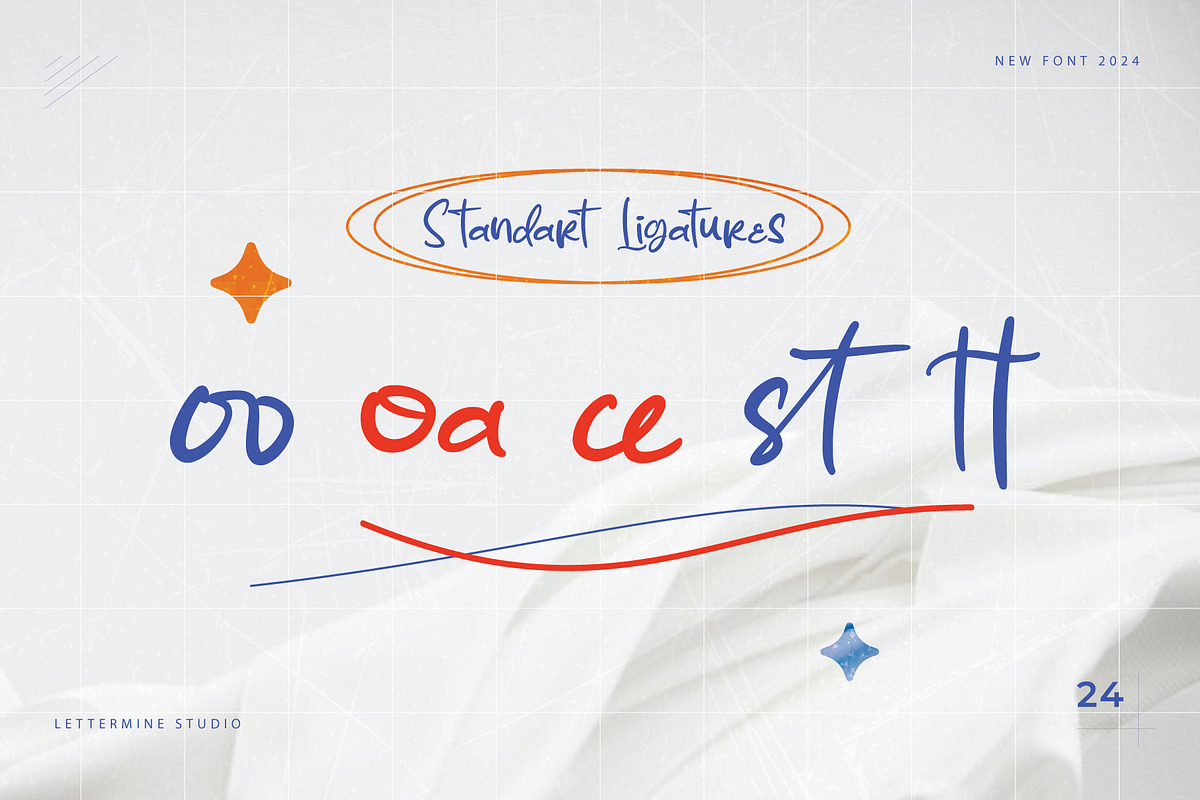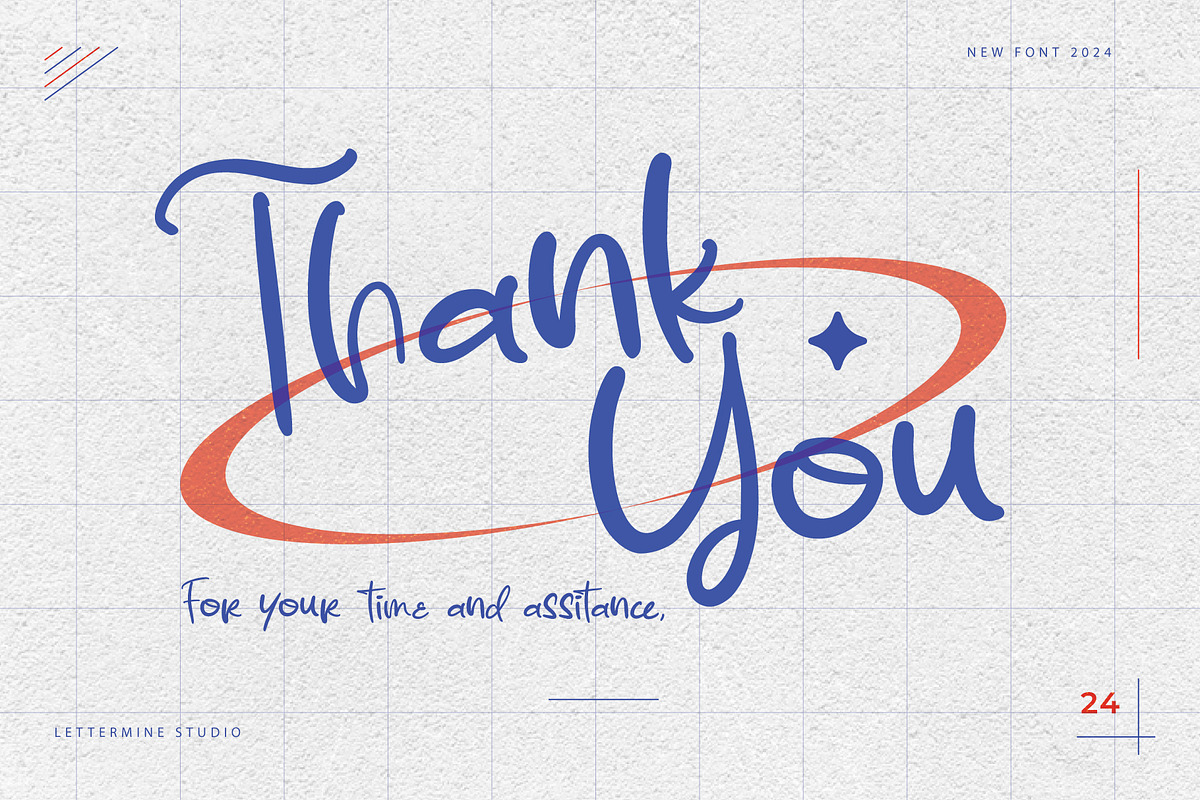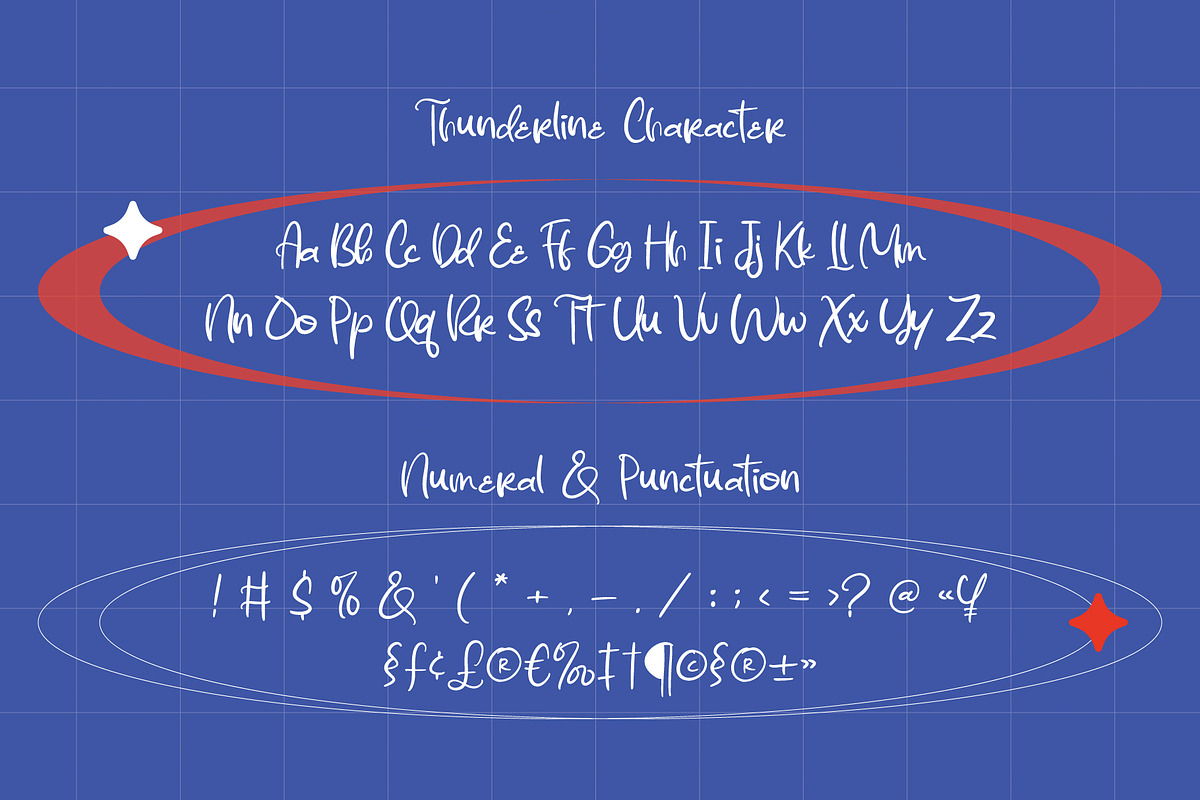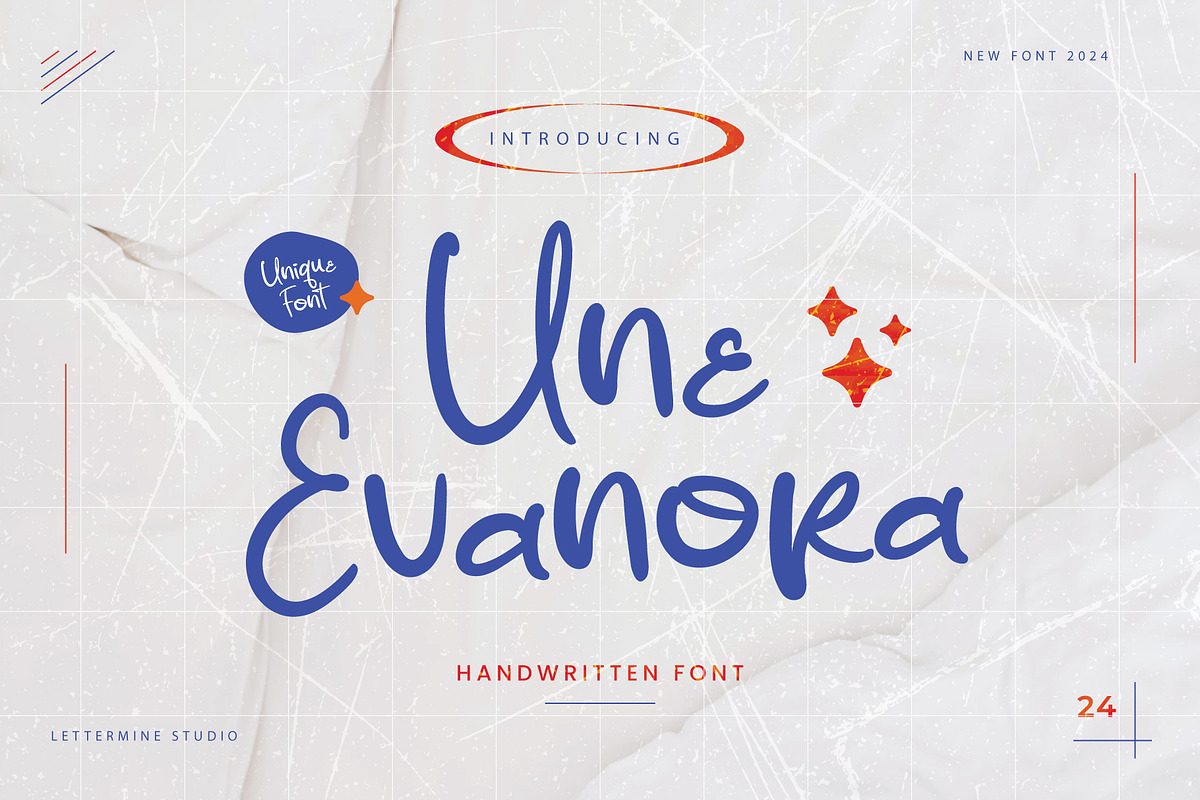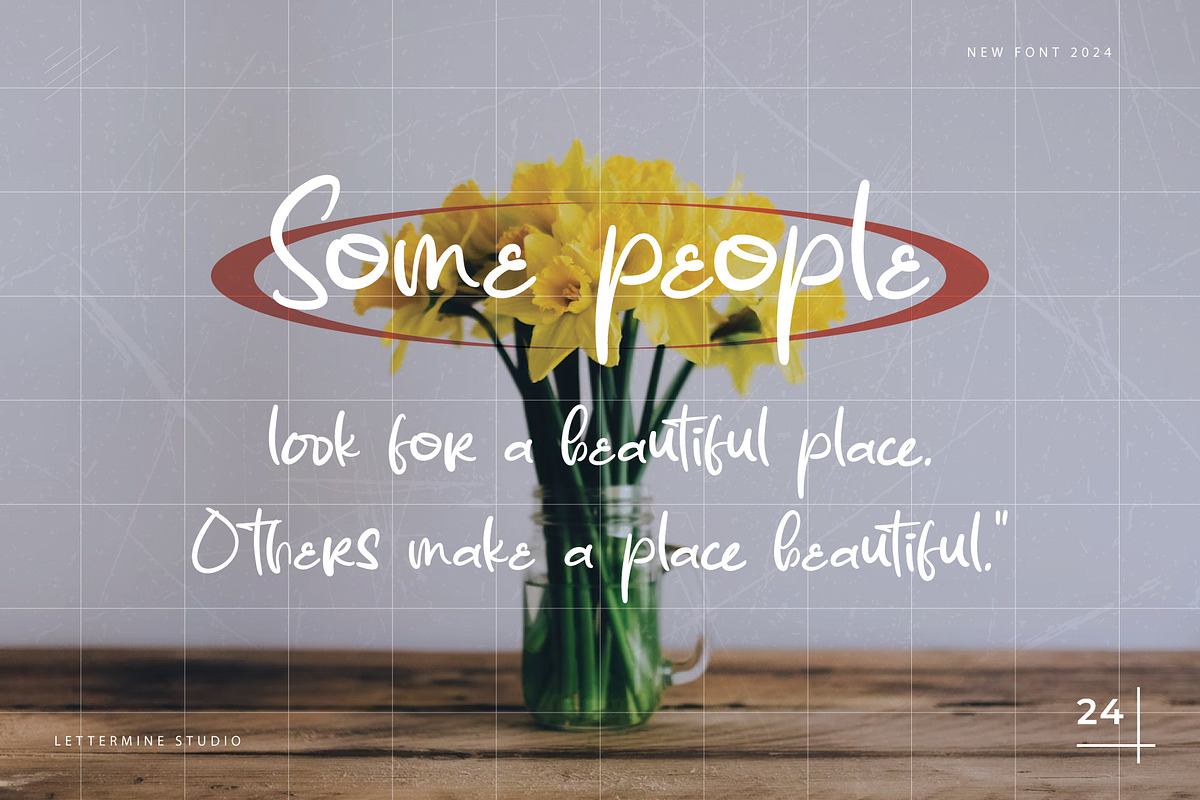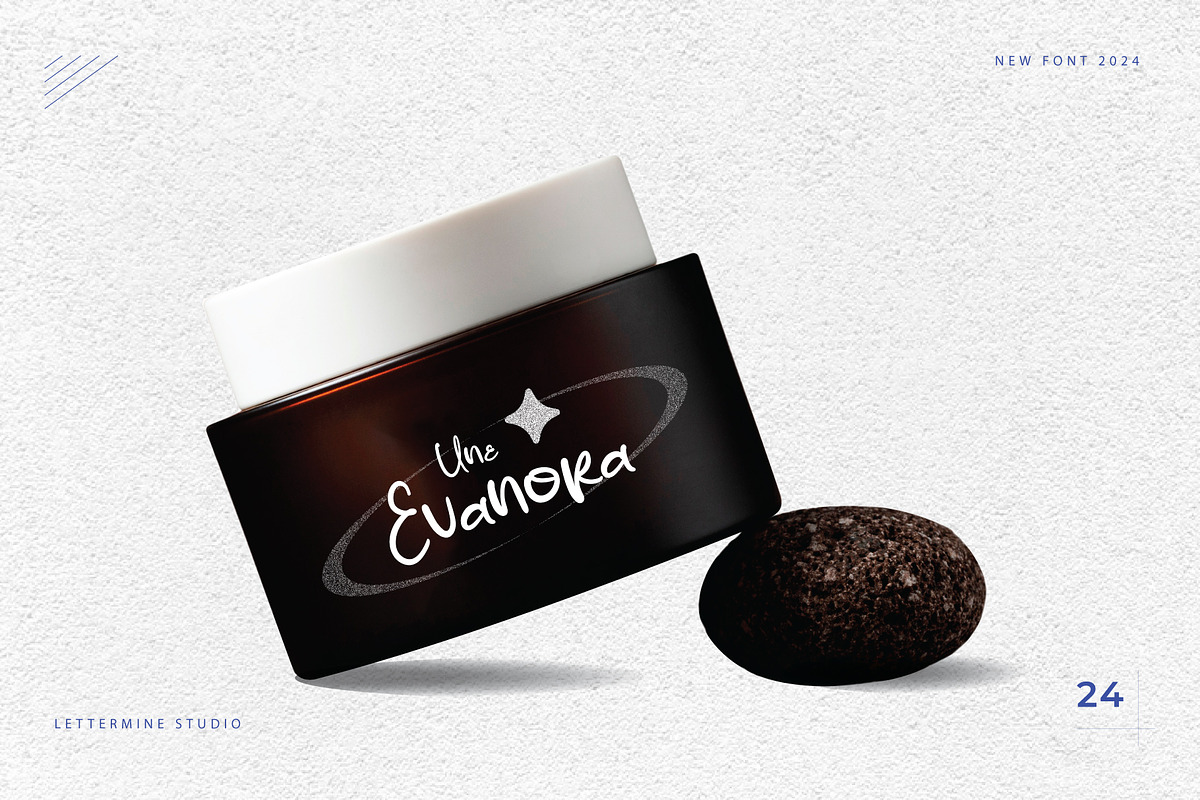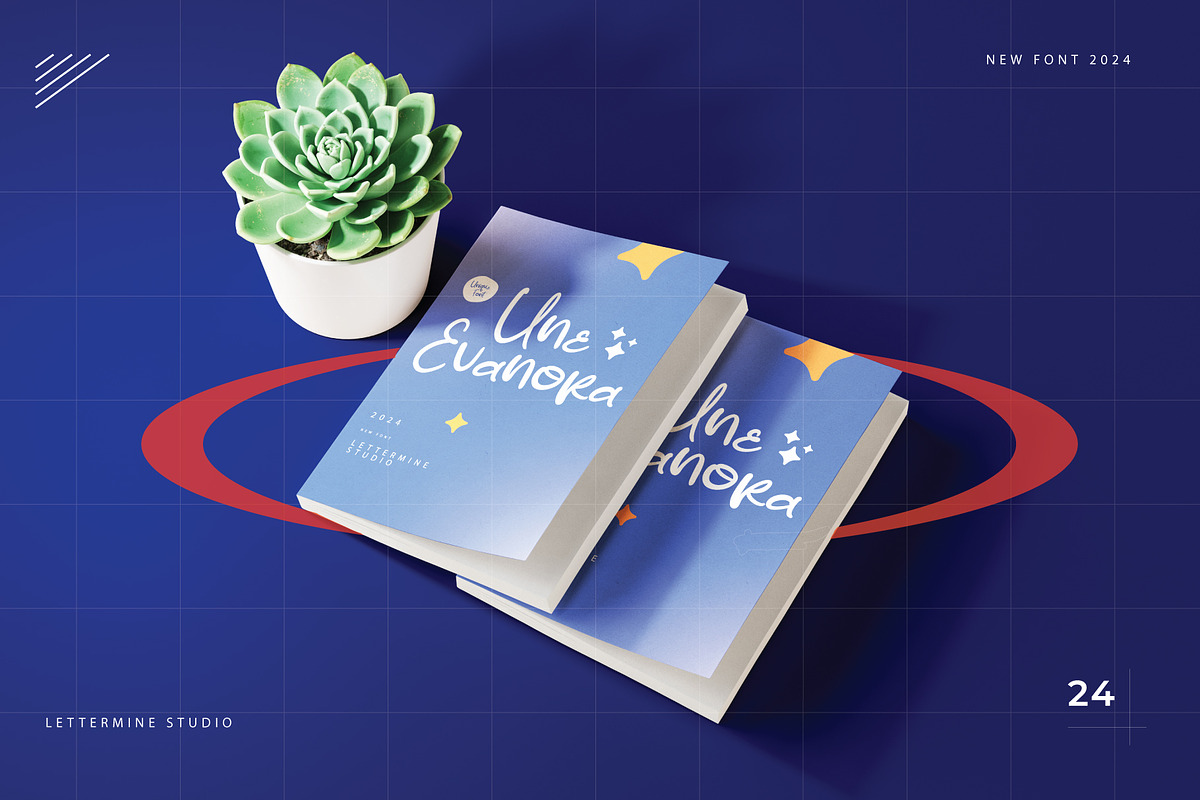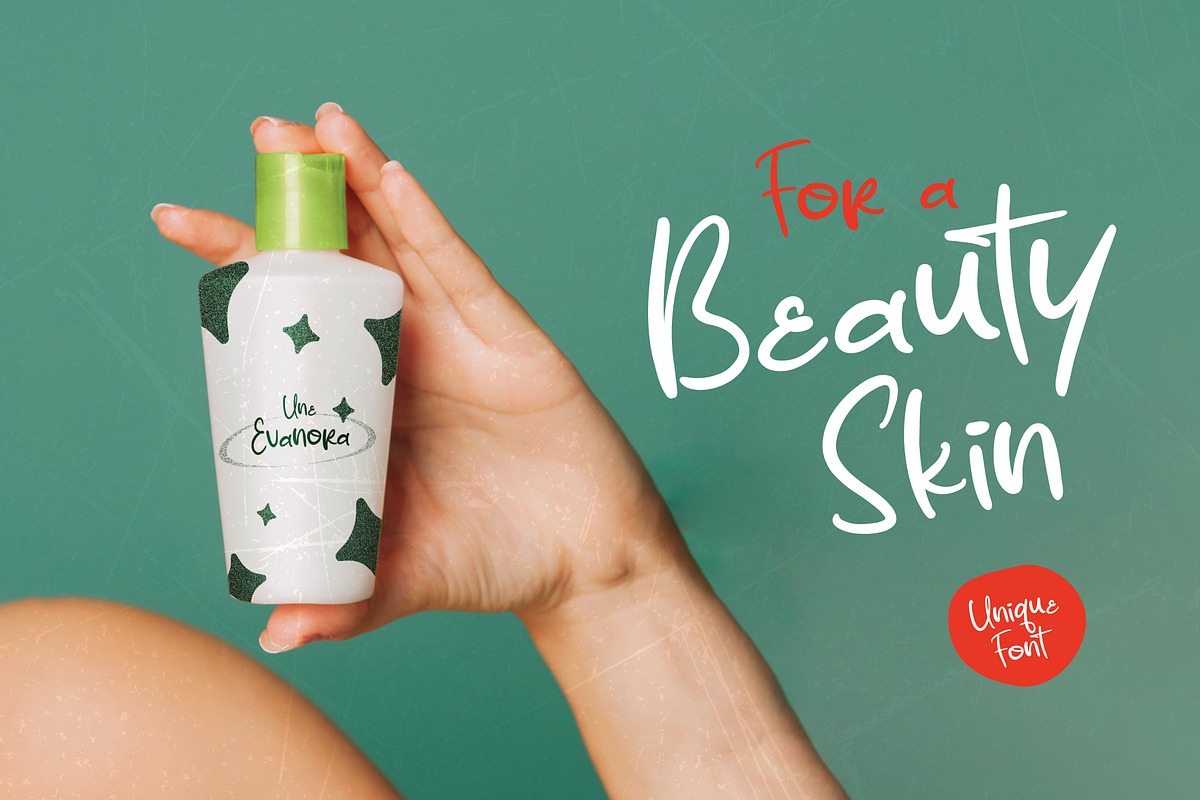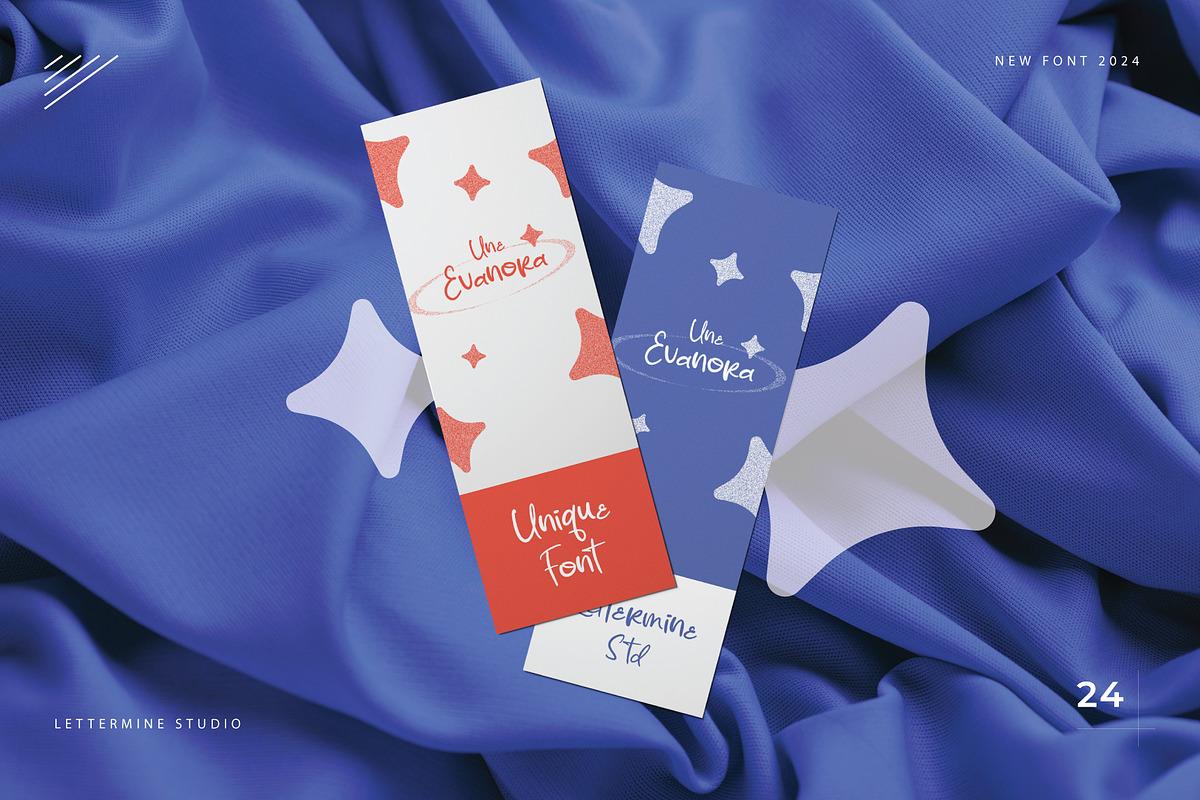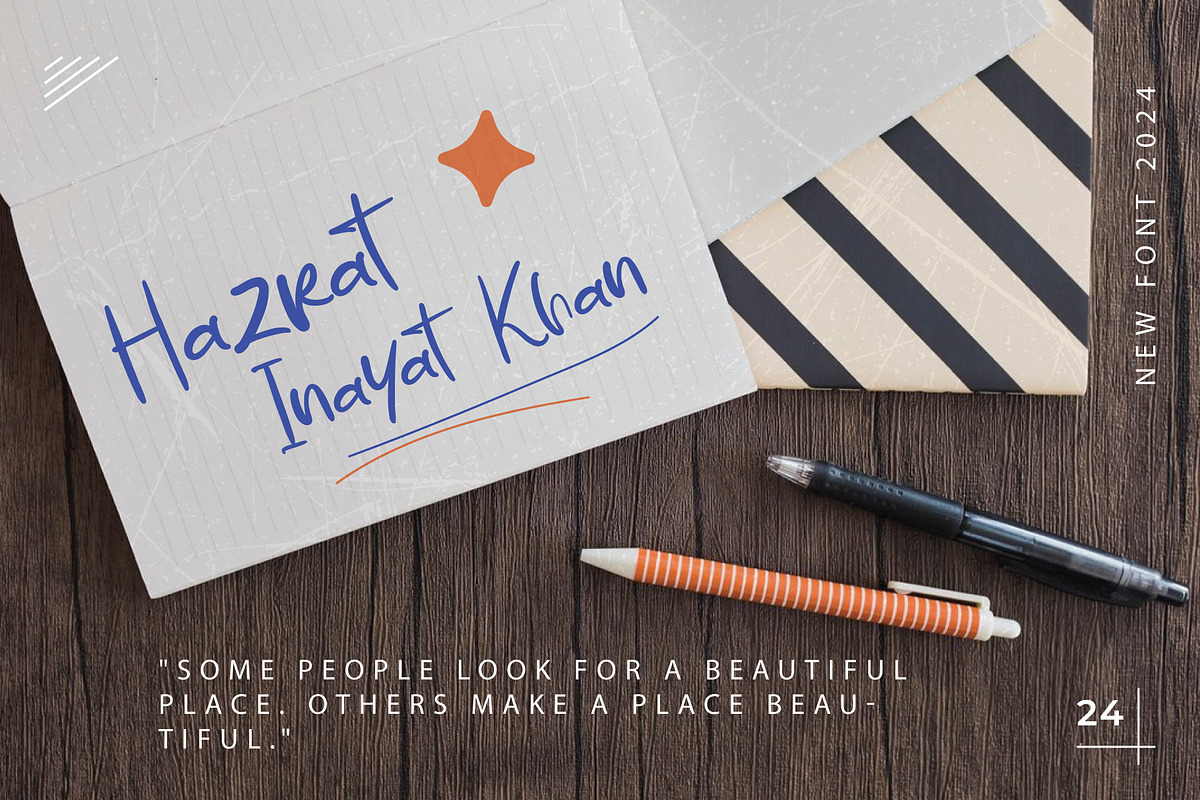
Une Evanora - Marker Handwritten
UNE EVANORA is a charming Script Handwritten font designed to add a touch of elegance and personality to your creative projects.
- Ligatures for natural letter connections
- Wedding invitations
- Greeting cards
- Branding & logo design
- Social media posts
- Handcrafted product packaging
Let UNE EVANORA bring a graceful and handwritten feel to your next project!